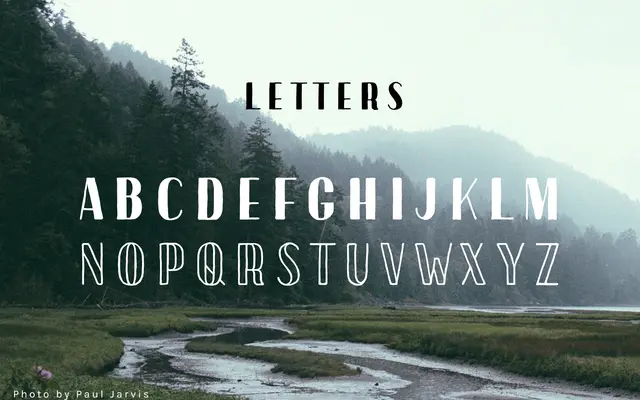
Saranac Hand
A hand-lettered display face with an artisan, outdoorsy feel, offered in Solid and Outline variants with support for 75 languages.
A hand-lettered typeface designed around an artisan, outdoor aesthetic, available in two styles: Solid and Outline. The broad language support across 75 languages makes it more internationally usable than most display hand-lettering. Suited to branding, packaging and signage where a rugged, hand-crafted tone is wanted.
Described as a hand-lettered typeface with an artisan, outdoorsy character; the solid and outline variants are typical of display hand-lettering rather than formal script traditions.